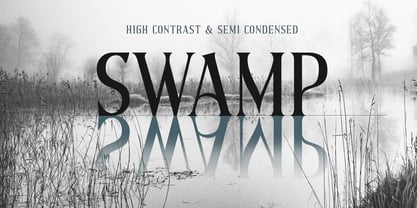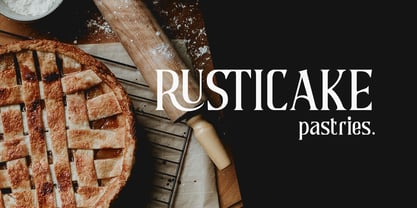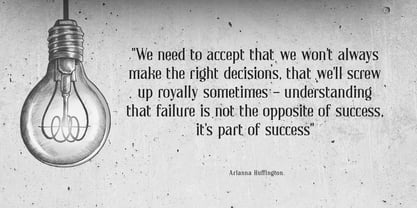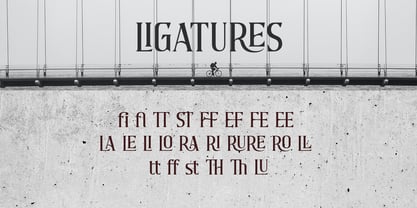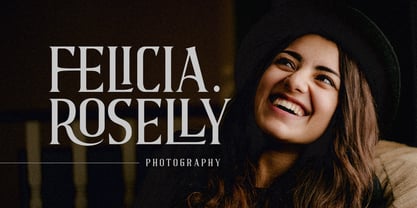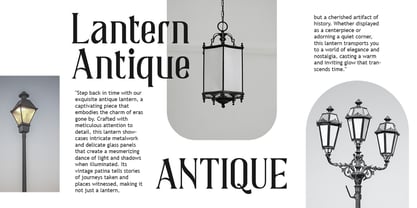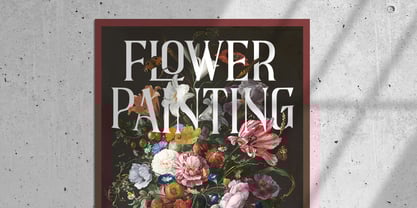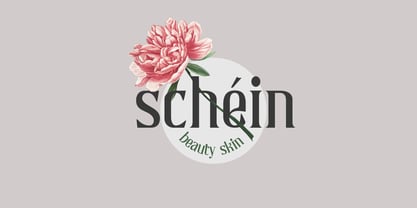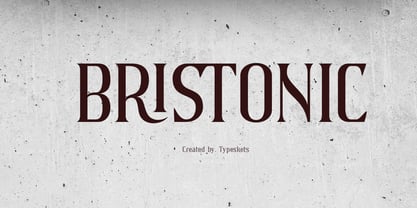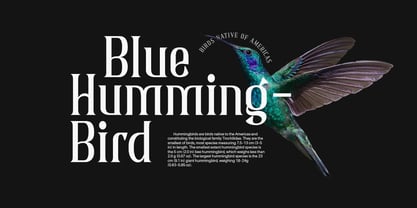
Bristonic
by Typeskets
The Bristonic Font Family was designed by Sahrul Hidayat and published by Typeskets. Bristonic contains 2 styles and family package options.
Bristonic is a beautiful semi-condensed serif typeface designed with a balance of elegance, sharp detailing, and refined proportions. Its tall structure, expressive terminals, and high-contrast strokes give Bristonic a sophisticated yet contemporary presence. Crafted with a collection of tasteful ligatures, the typeface provides enhanced typographic flow and visual harmony—ideal for designers who appreciate artistry in every letterform. The semi-condensed width allows Bristonic to remain space-efficient while retaining a luxurious, graceful silhouette. Bristonic excels in editorial layouts, branding identities, packaging, book covers, and high-end promotional designs. Whether used in large display sizes or refined title work, Bristonic brings a timeless charm and modern elegance to any visual composition. A carefully crafted serif designed to stand out in both classic and contemporary settings.
Designers: Sahrul Hidayat
Publisher: Typeskets
Foundry: Typeskets
Design Owner: Typeskets